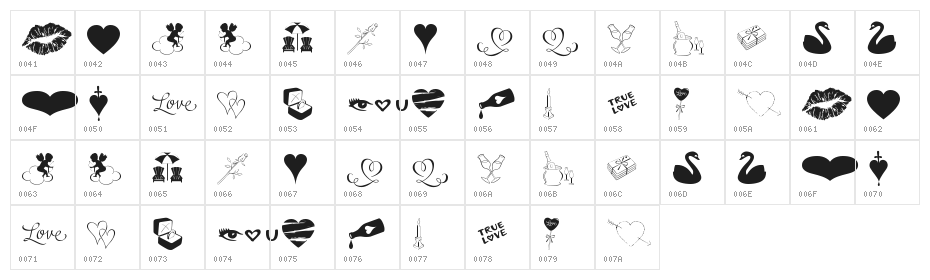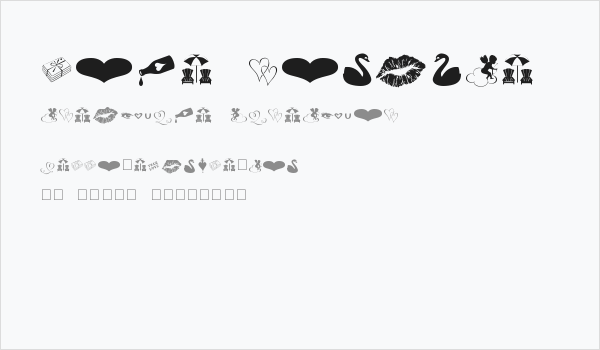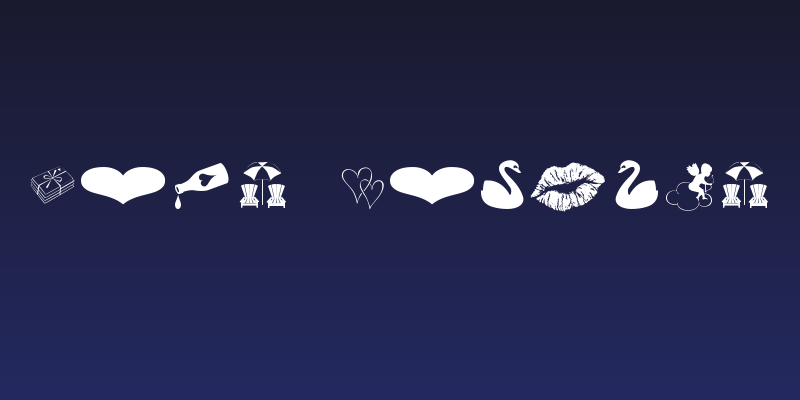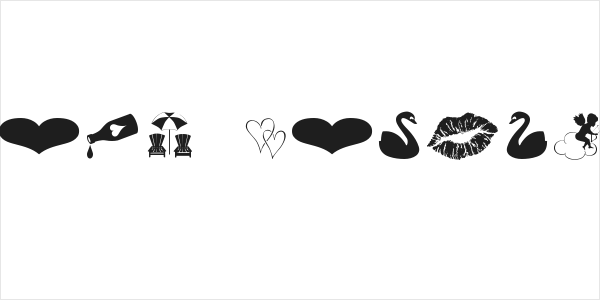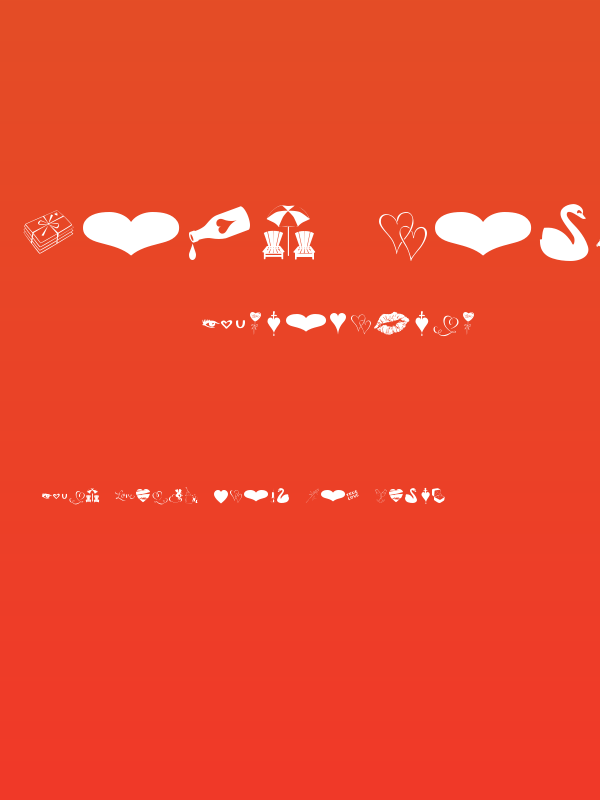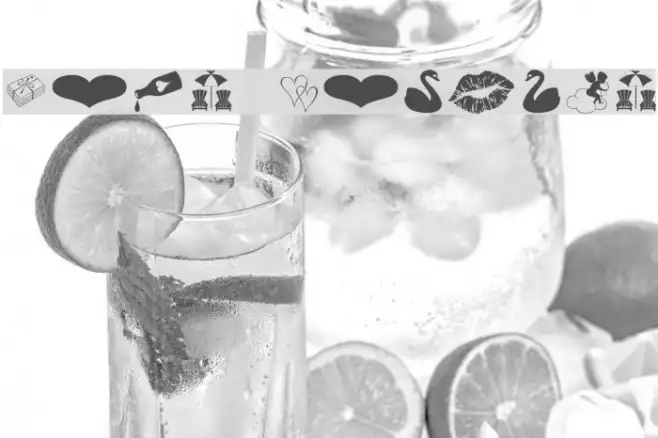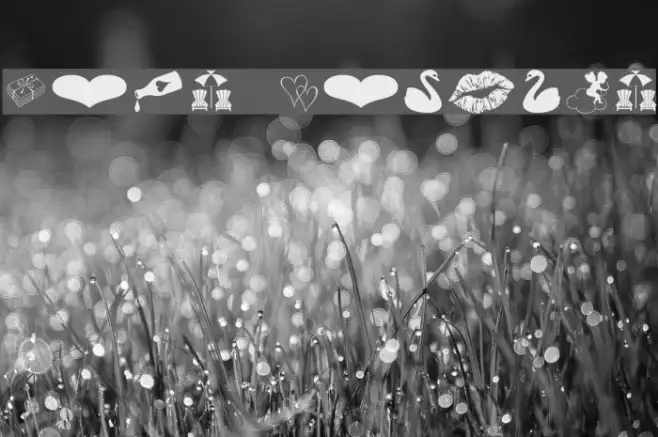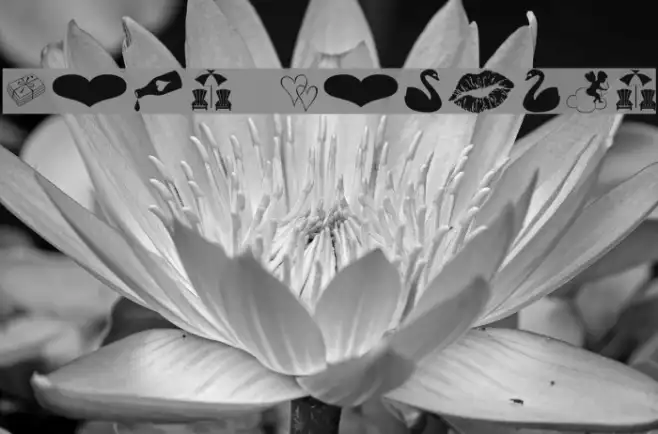
Love Romance Font
Love Romance Description
This collection features a series of romantic and love-themed icons and symbols, including hearts, cupids, swans, and various love-related imagery. Each symbol is intricately designed, capturing the essence of romance with elegant curves and detailed illustrations. The icons are perfect for adding a touch of love to any project, with a playful yet sophisticated style. The set includes a variety of elements that can be used individually or combined to create a cohesive romantic theme. The designs are versatile, suitable for both digital and print media, and can be used to enhance invitations, greeting cards, or any project that requires a romantic touch.
| Proposed Projects | Ideal for wedding invitations, Valentine's Day cards, romantic event promotions, and love-themed digital content. |